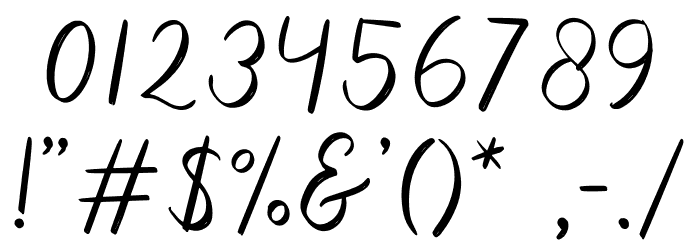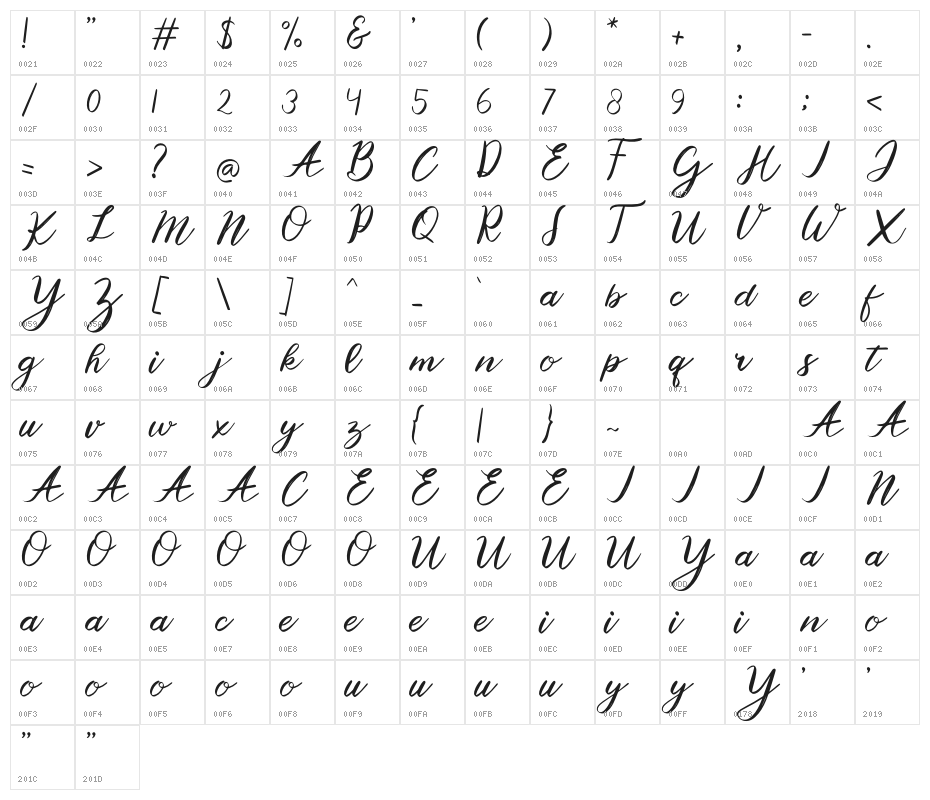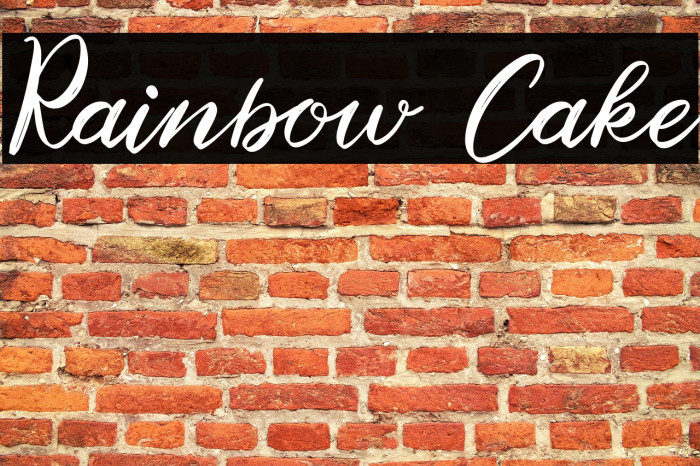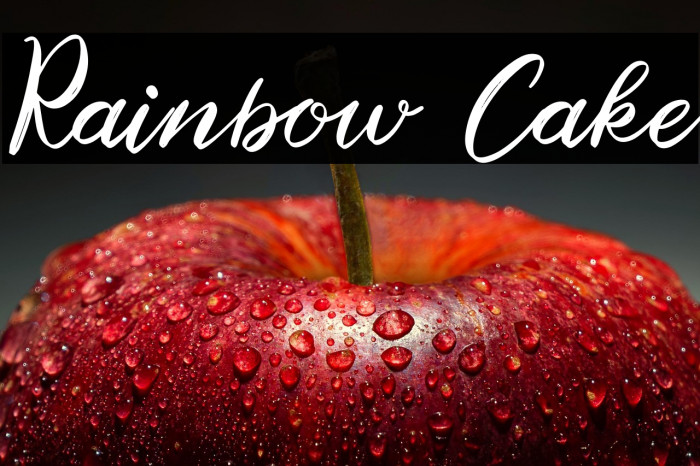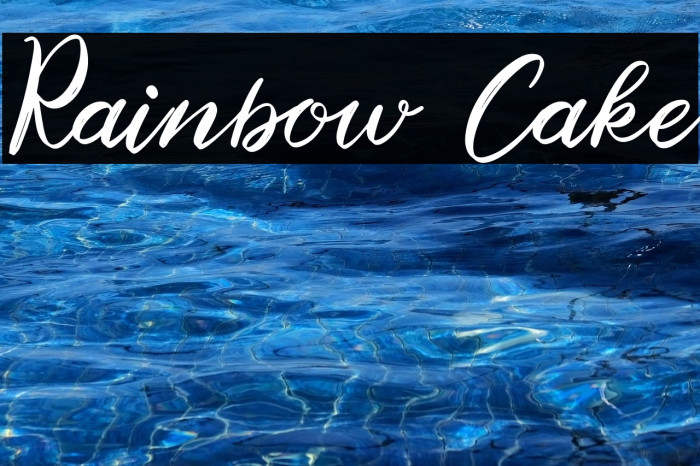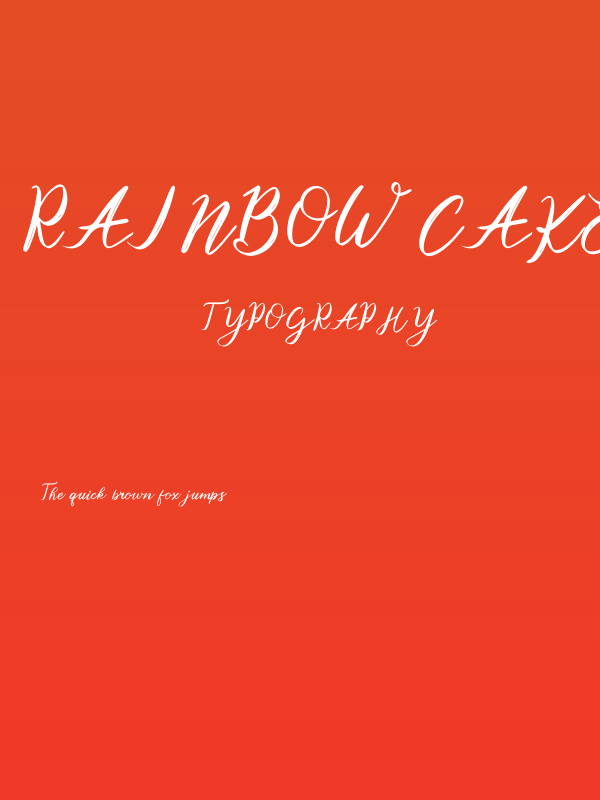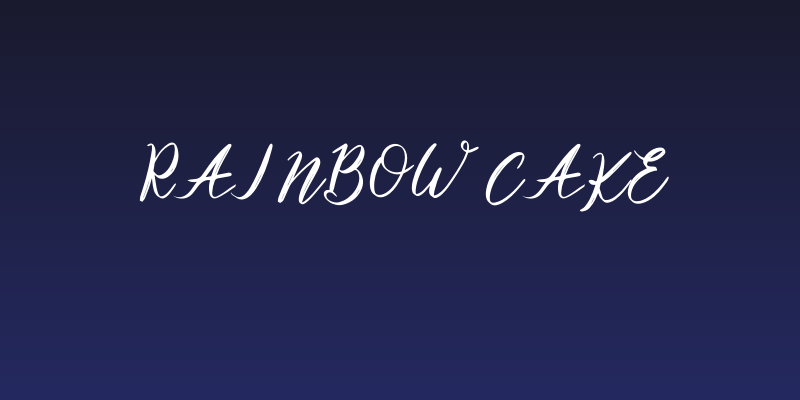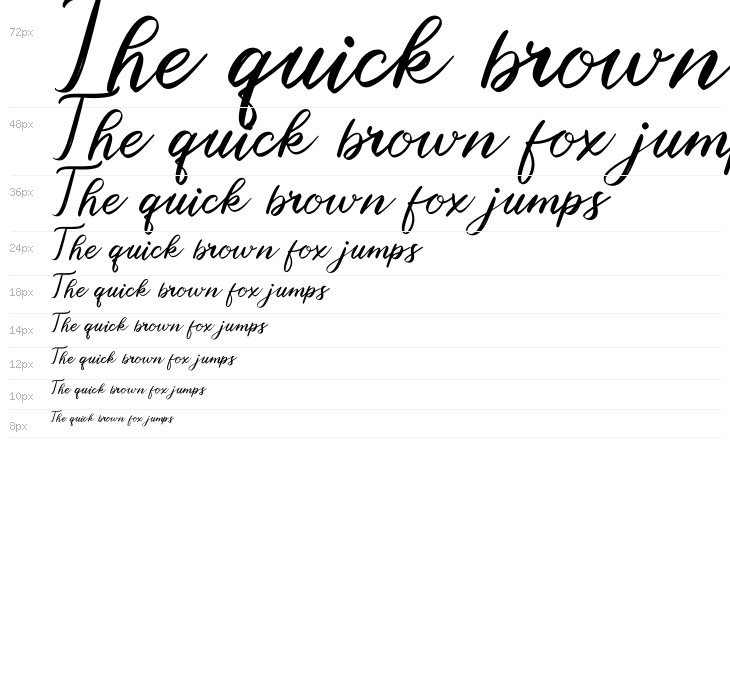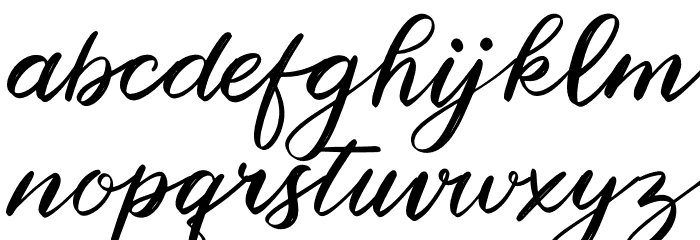
Rainbow Cake Font
Rainbow Cake Description
This font features a flowing, cursive style with elegant, sweeping strokes that convey a sense of sophistication and grace. The uppercase letters are bold and prominent, while the lowercase letters maintain a consistent fluidity, enhancing readability. The numerals are distinct and integrate seamlessly with the overall design. Special characters are crafted with the same attention to detail, ensuring a cohesive look. The font's script nature makes it ideal for projects that require a personal touch, such as invitations, greeting cards, and branding materials.
| Use Case | Invitations, Branding, Greeting Cards |
| Proposed Projects | Ideal for wedding invitations, greeting cards, branding, and elegant packaging. |